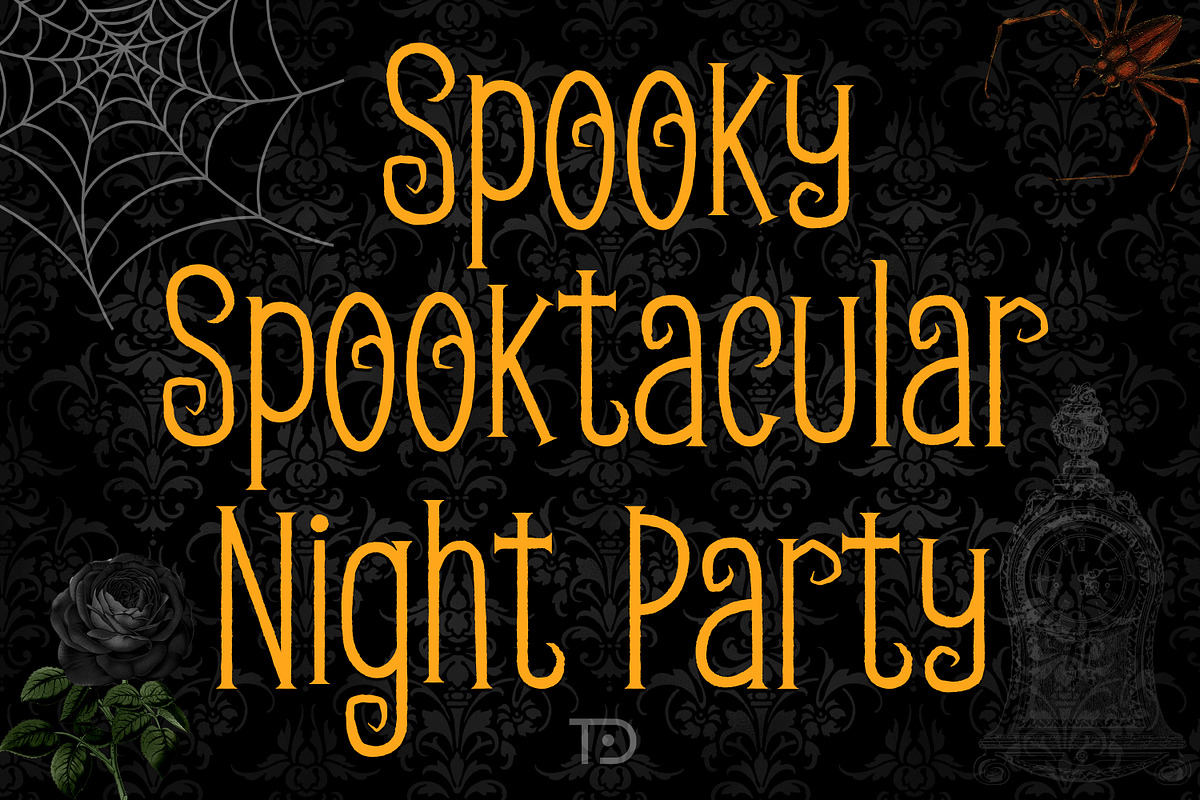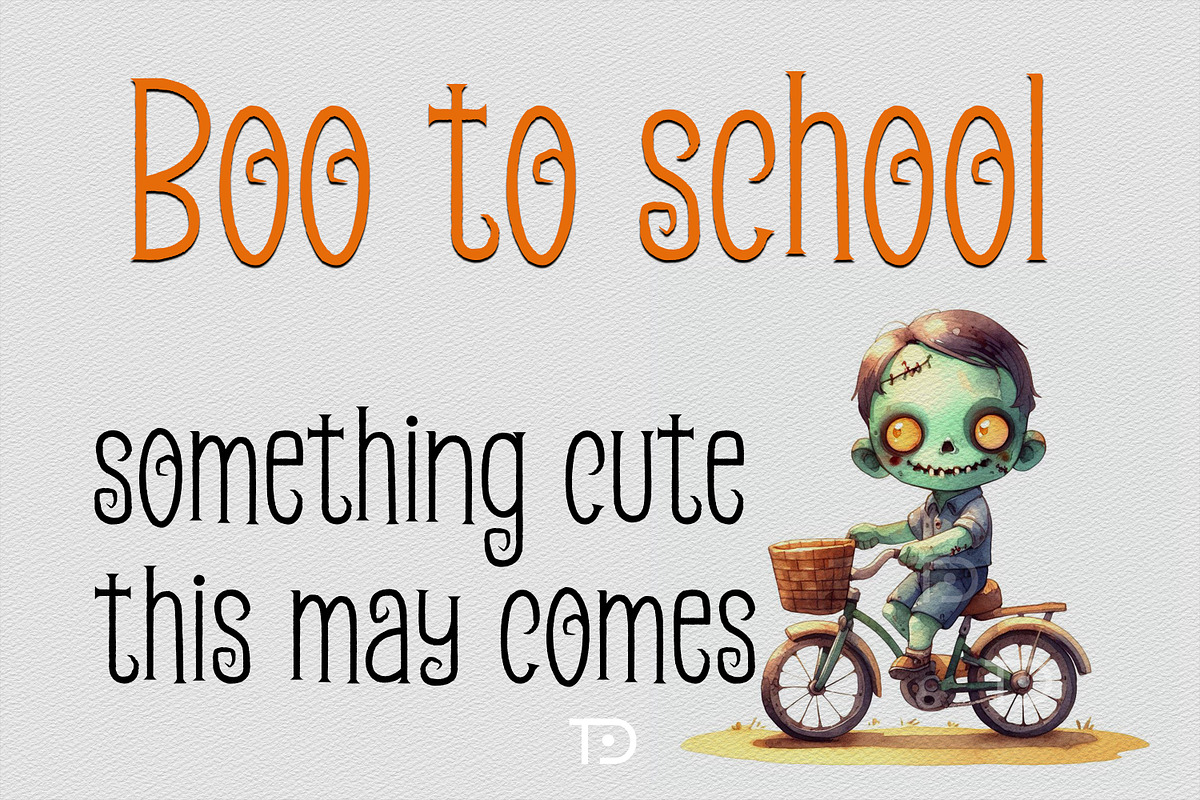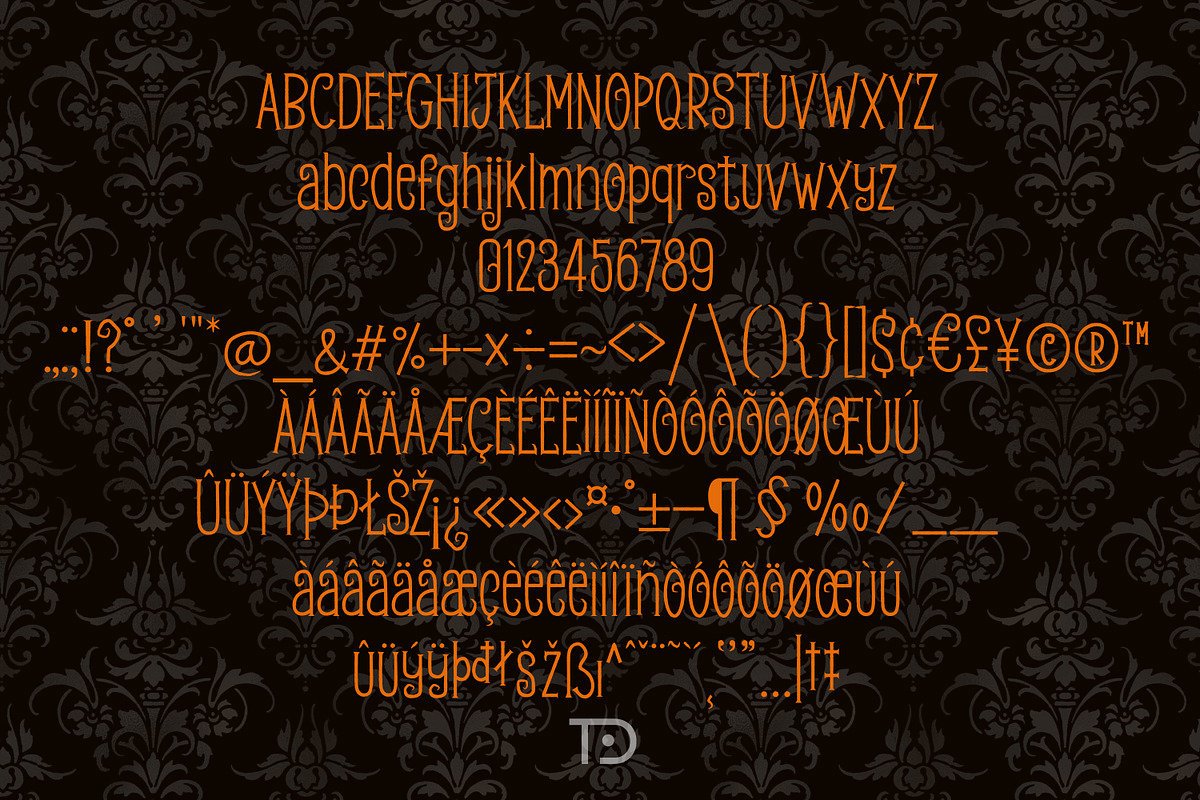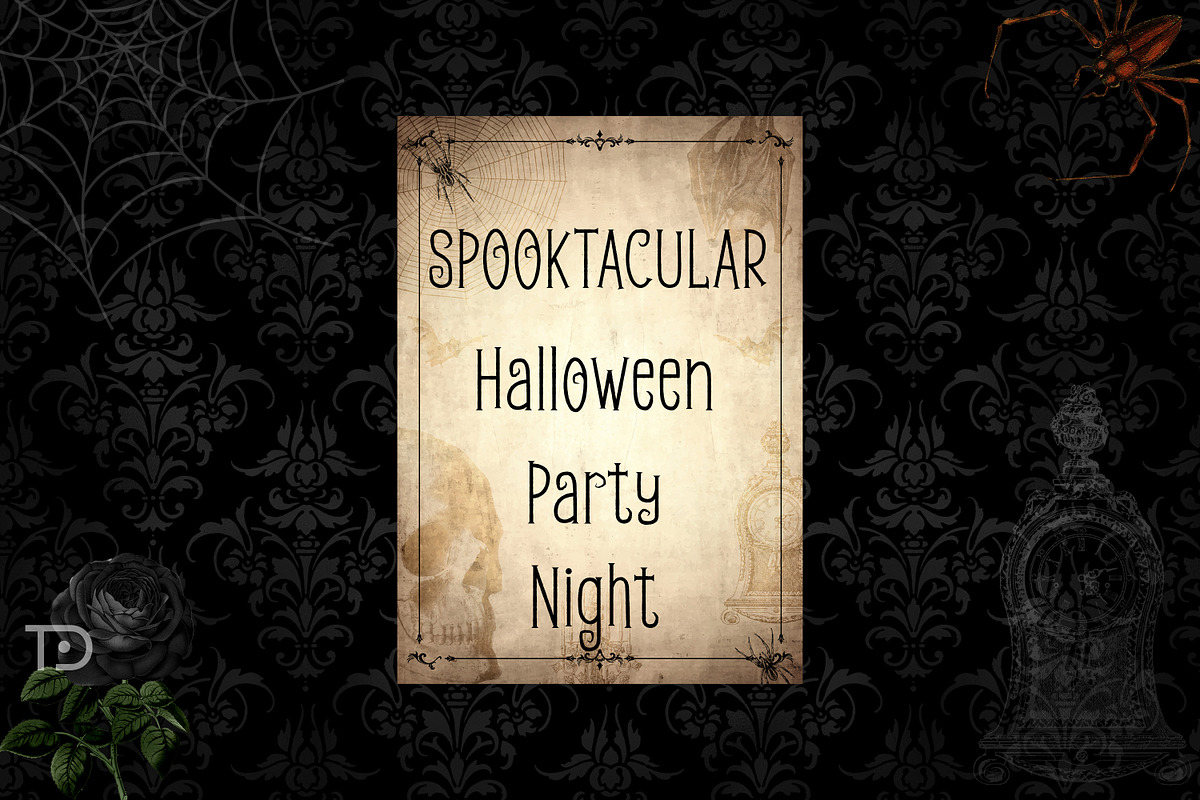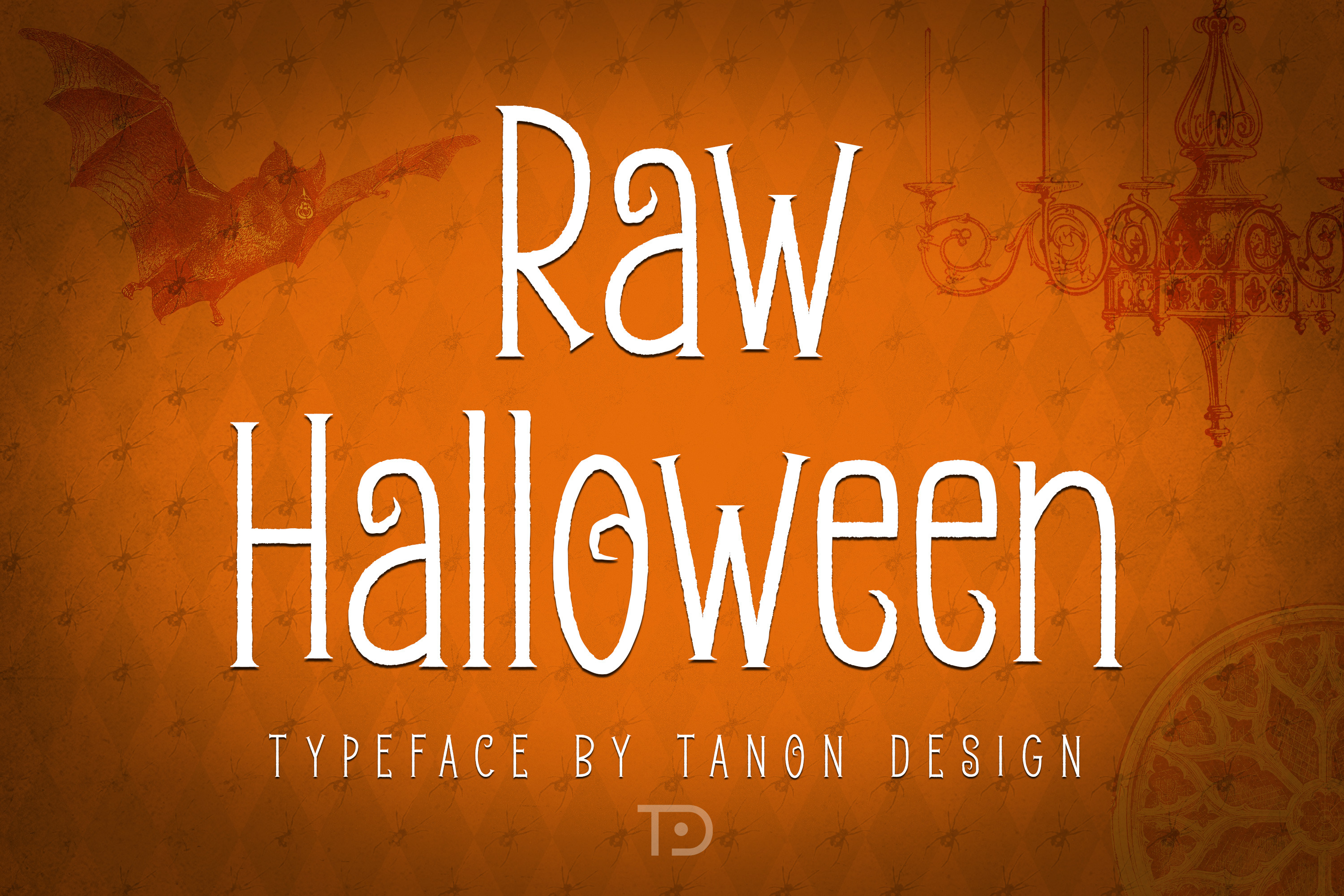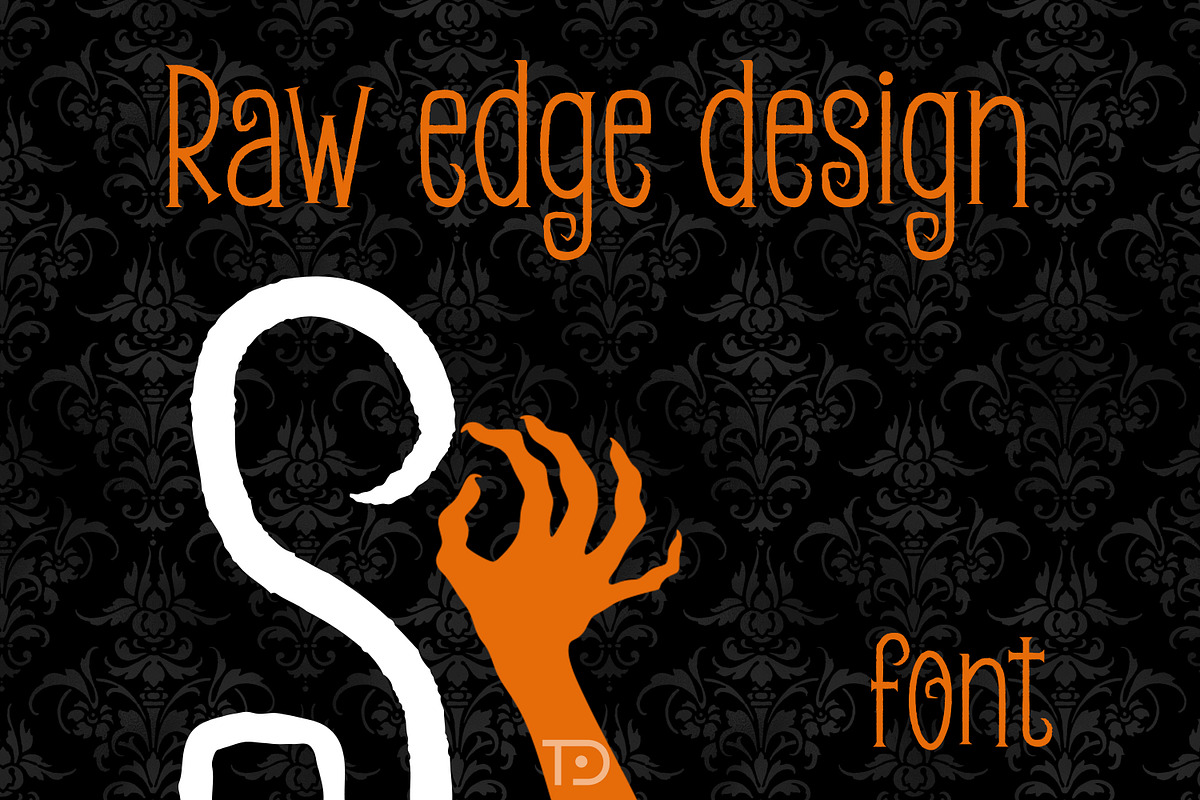
Raw Halloween Font
Raw Halloween Font is a Spooky Halloween font with rough edge design. It is perfect choice for any project. Perfect for party invitations, spooky signage, and bewitching crafts. Let your words cast a bewitching spell this Halloween! Scary, weird and creepy. It will add a touch of horror to any design project!